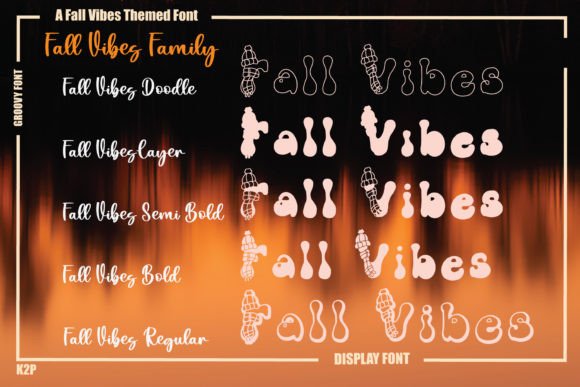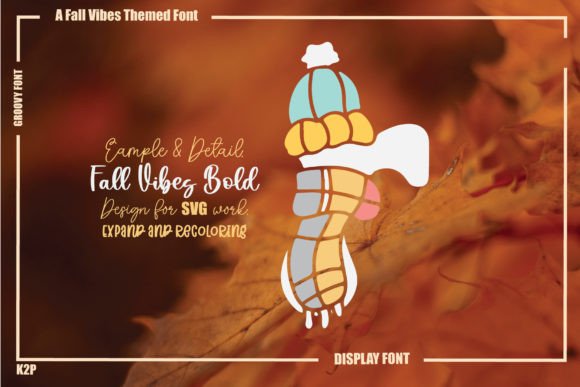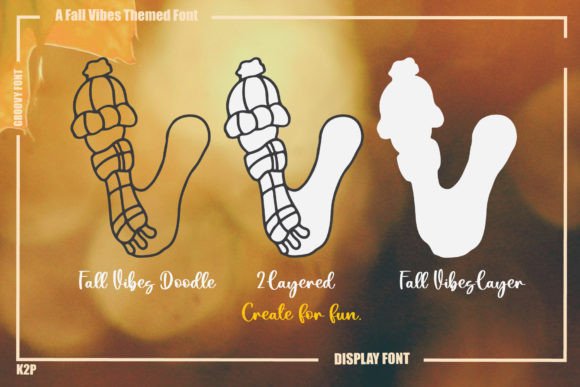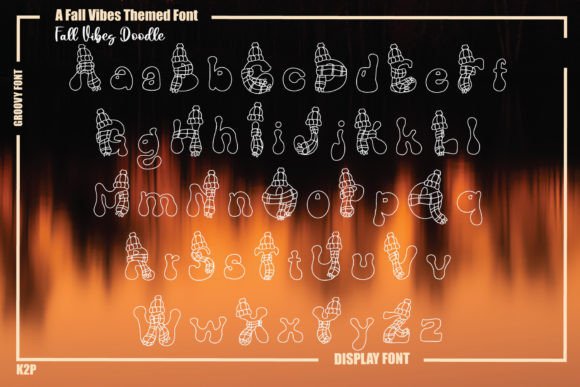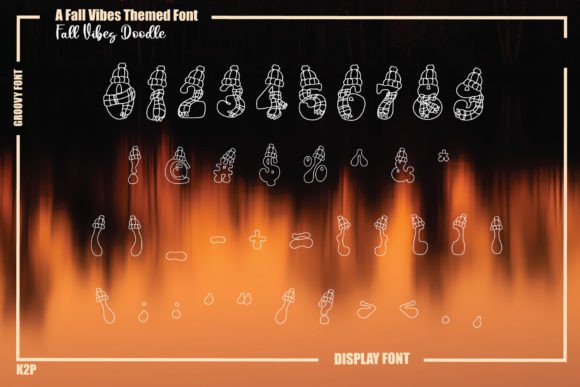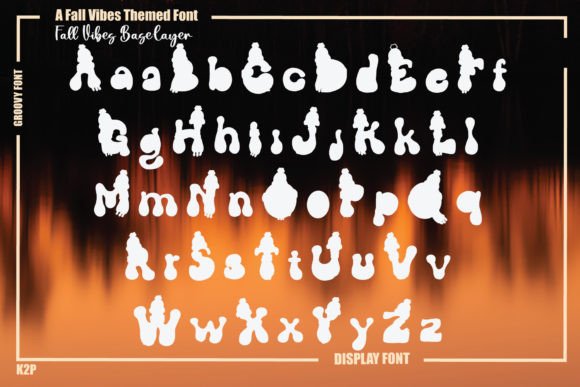
Fall into Love with Fall Vibes Font
It’s that time of the year again – the leaves are changing colors, the air is crisp, and we’re all scrambling to finish our design projects before the holiday rush. I distinctly remember working on a Fall-themed invitation last year, struggling to find the perfect font that captured the cozy, warm essence of the season. That’s when I stumbled upon Fall Vibes Font, and it instantly became my go-to for all things Autumn.
A Personal Review of Fall Vibes Font
I’m excited to share my honest review of Fall Vibes Font, and I hope it helps you decide if it’s the right fit for your next design project.
What I Love About Fall Vibes Font
- ✨ Unique and Playful Design: Fall Vibes Font boasts an incredibly distinctive and adorable design that screams Fall. Its quirky style is perfect for creating festive and engaging content.
- ✅ Highly Versatile: This font is not limited to just Fall-themed designs. Its decorative style can be used for a wide range of creative projects, from party invitations to social media graphics.
- 💻 Easy to Read: Despite its decorative nature, Fall Vibes Font remains surprisingly legible, making it a great choice for both headings and short paragraphs of text.
While Fall Vibes Font is amazing, it’s not without its quirks. Here are a few things to keep in mind:
- 🤔 Limited Use in Formal Designs: Due to its playful and decorative nature, Fall Vibes Font might not be the best choice for formal or professional designs, such as corporate branding or official event invitations.
- ⚠️ Glyphs and OpenType Features: While Fall Vibes Font does offer some OpenType features and glyphs, it may not have the extensive range you’re used to with other fonts. This could limit its use in highly customized designs.
The Story Behind Fall Vibes Font
Fall Vibes Font was created with the intention of capturing the warmth and coziness of the Fall season. Its designer aimed to craft a font that would instantly evoke feelings of nostalgia and comfort, making it perfect for a wide range of creative projects. While the exact backstory might be fictional, it’s clear that the font was designed with love and a deep appreciation for the season.
Q: What type of designs is Fall Vibes Font best suited for?
A: Fall Vibes Font is ideal for Fall-themed designs, such as invitations, social media graphics, and party decorations. Its versatility also makes it suitable for a wide range of creative projects.
Q: Does Fall Vibes Font support OpenType features?
A: Yes, Fall Vibes Font offers some OpenType features and glyphs, which can be accessed through the typography or character panel in compatible design software.
Q: Is Fall Vibes Font easy to read?
A: Despite its decorative nature, Fall Vibes Font remains surprisingly legible, making it a great choice for both headings and short paragraphs of text.